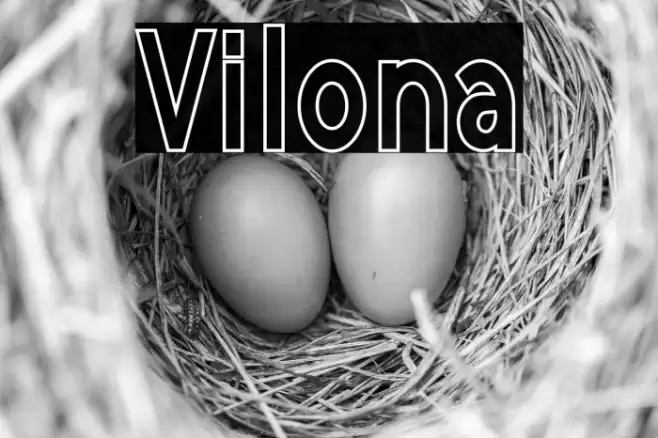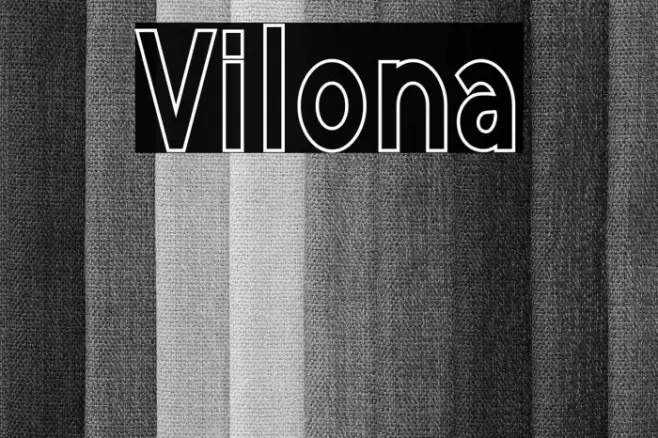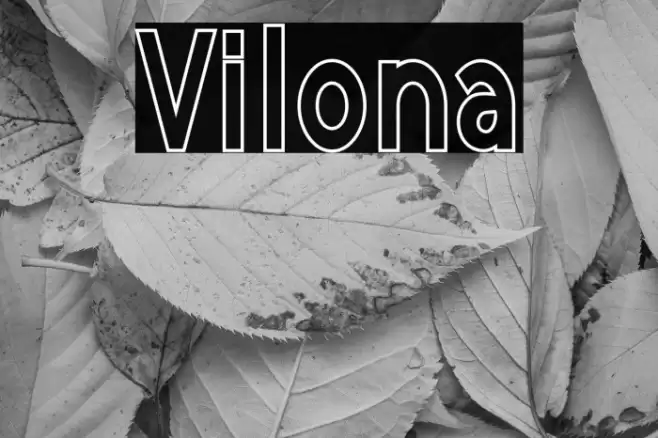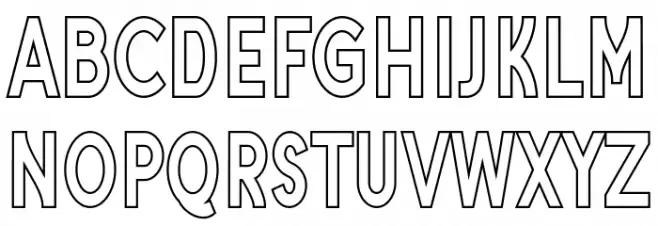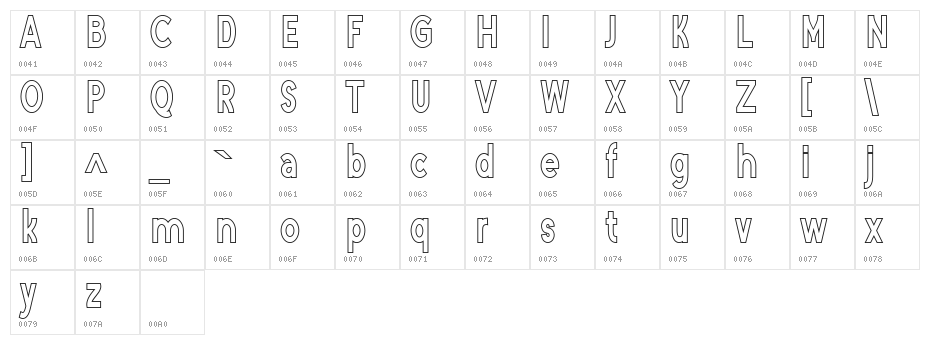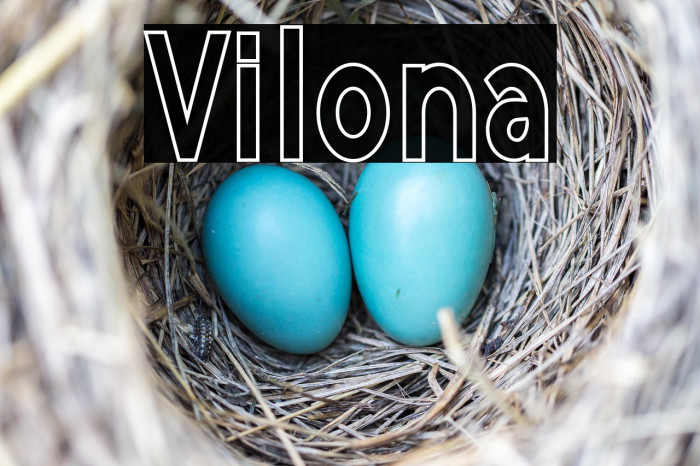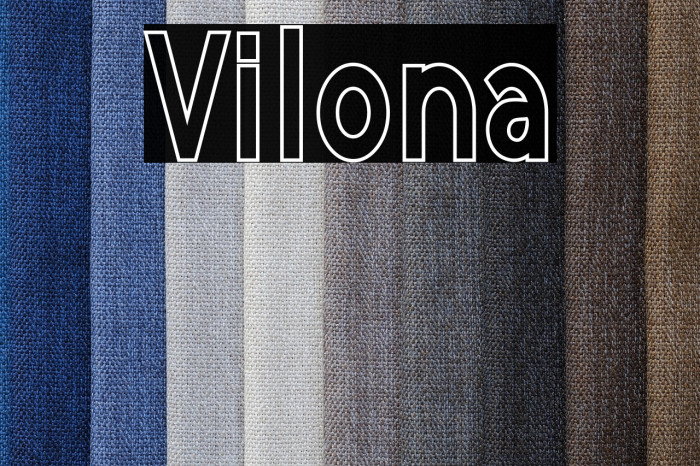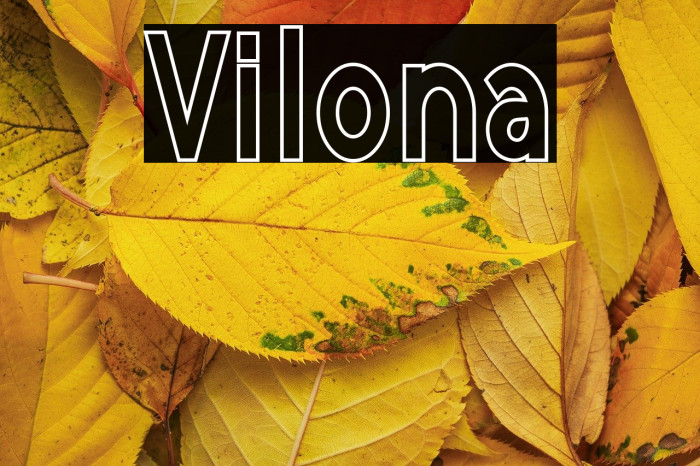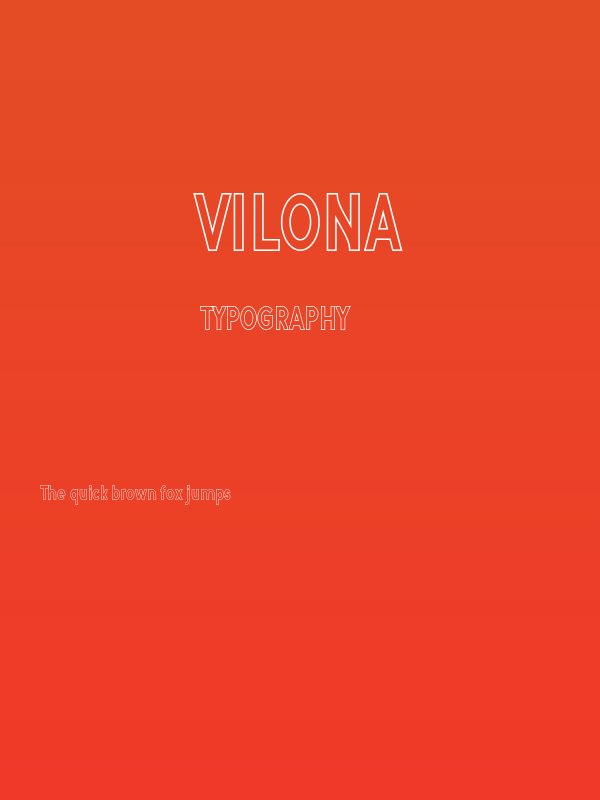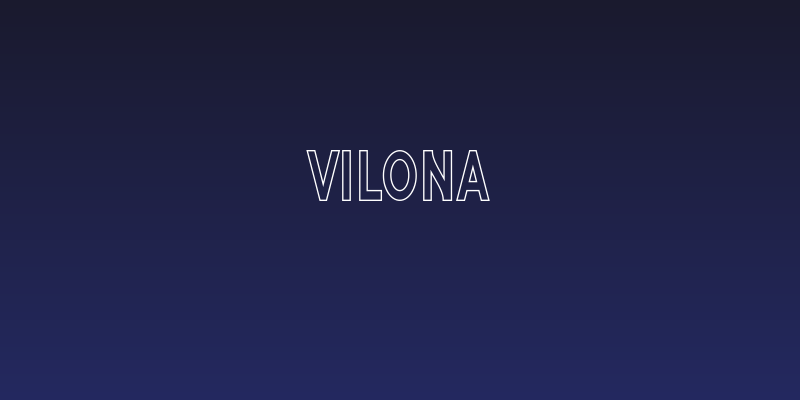
Vilona Font
Vilona Description
This font features a clean, geometric sans-serif style with a modern and minimalistic aesthetic. The characters are outlined, providing a hollow appearance that adds a unique visual interest. The uppercase and lowercase letters maintain a consistent width, contributing to a balanced and harmonious look. The font's design is straightforward yet stylish, making it versatile for various applications. The numerals and special characters are designed to match the overall aesthetic, ensuring uniformity across all elements. This font is ideal for projects that require a contemporary and sleek appearance.
A modern, geometric sans-serif font with outlined characters for a sleek, minimalistic look from Regular fonts.
- Proposed Projects: Ideal for branding, logos, headlines, and modern design projects that require a clean and stylish appearance.
- Use Case: Headlines, Logos, Branding